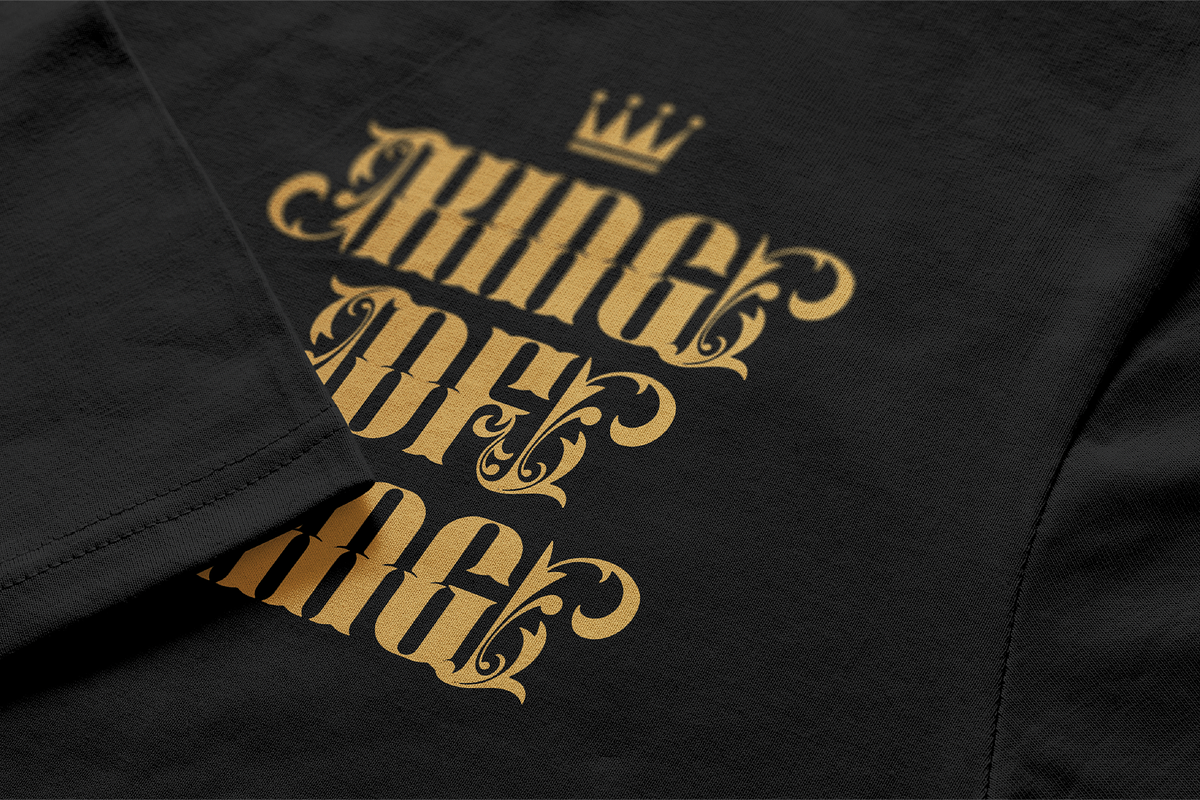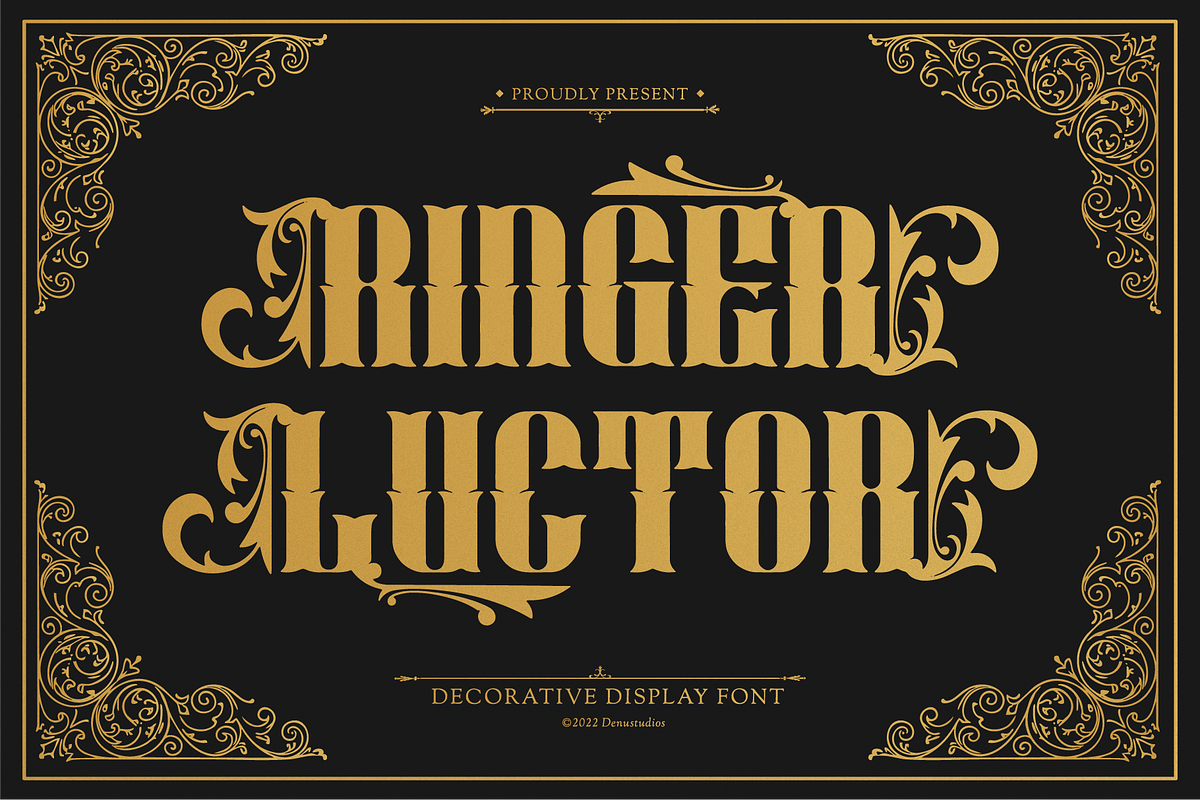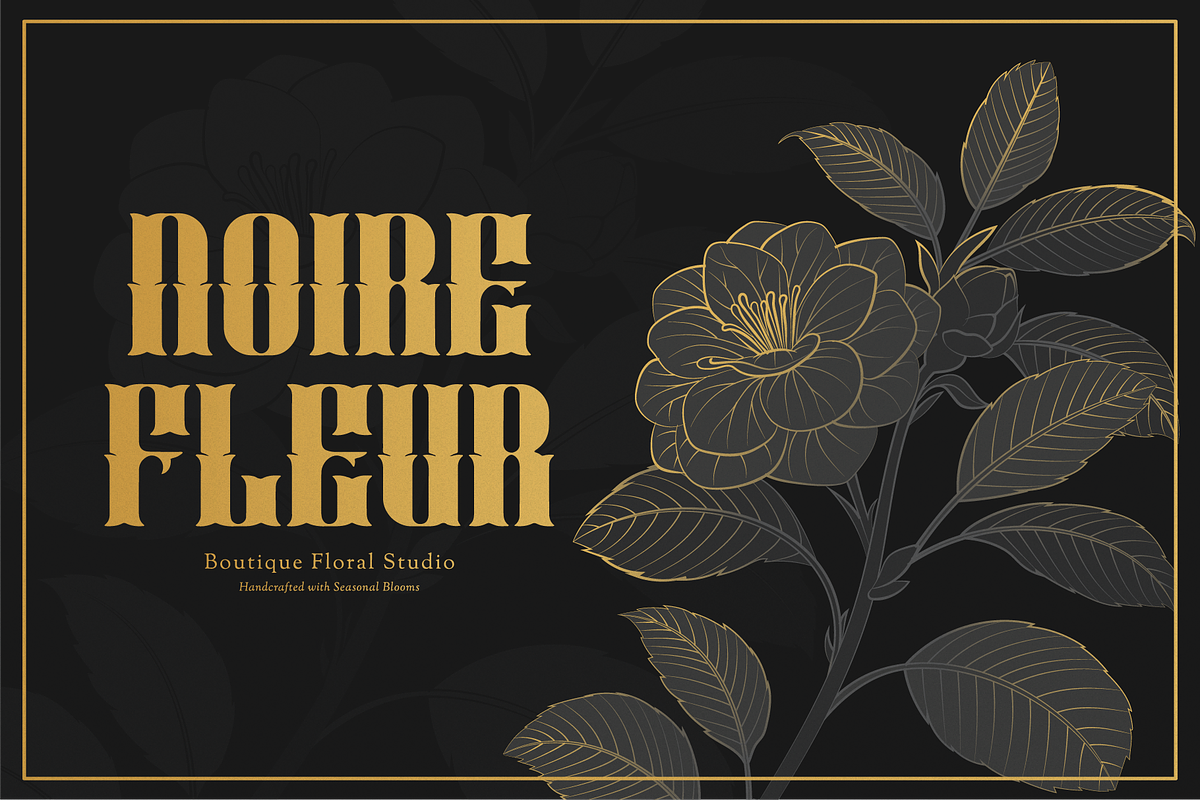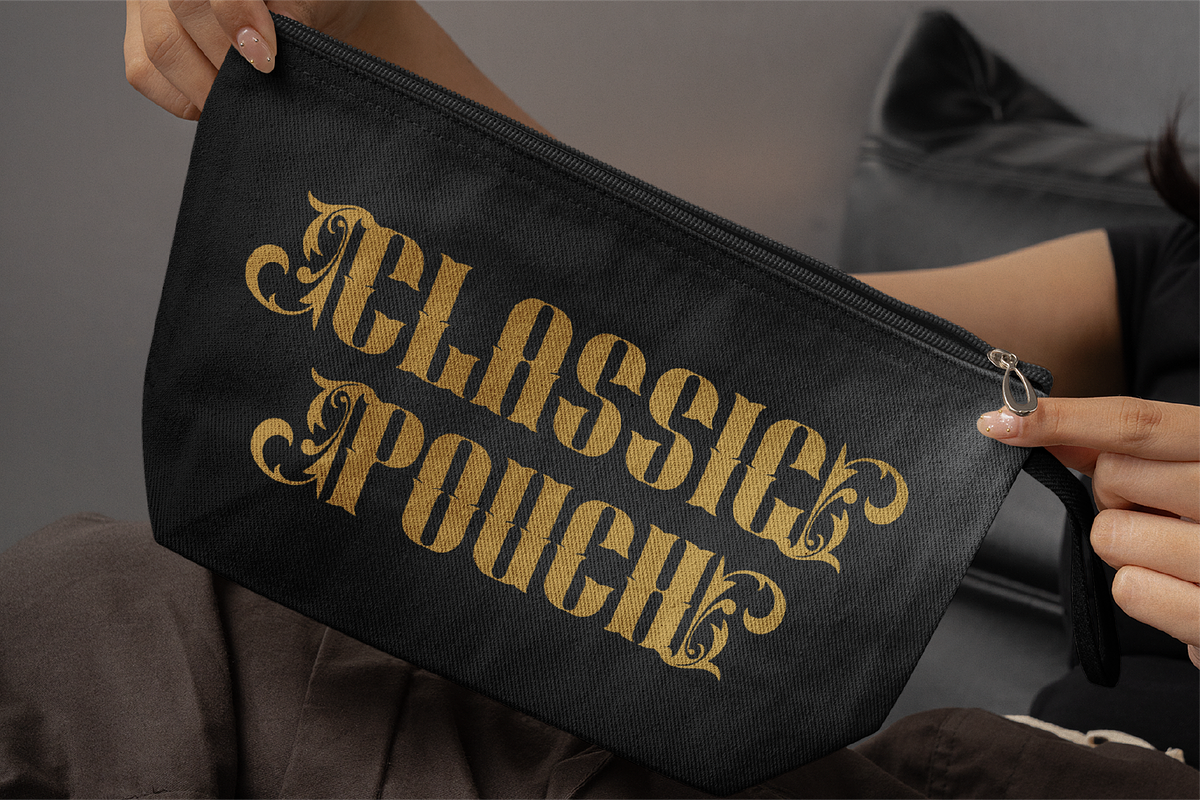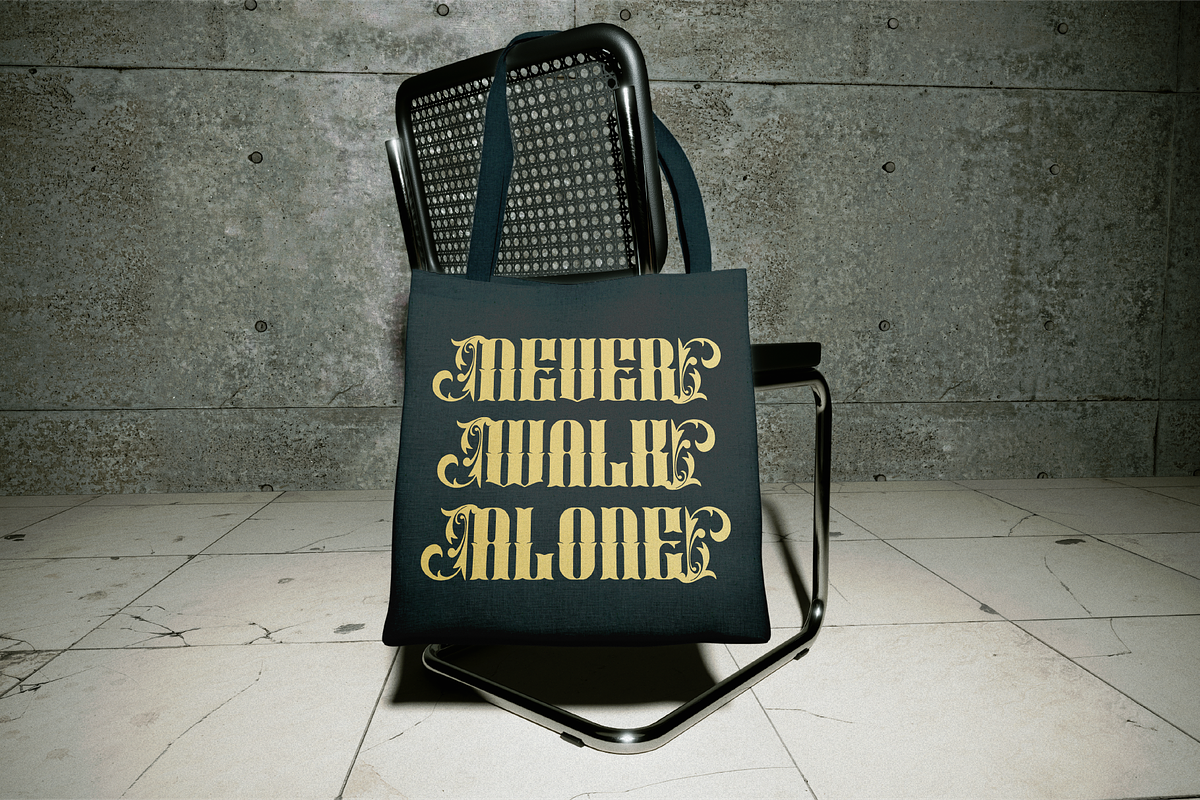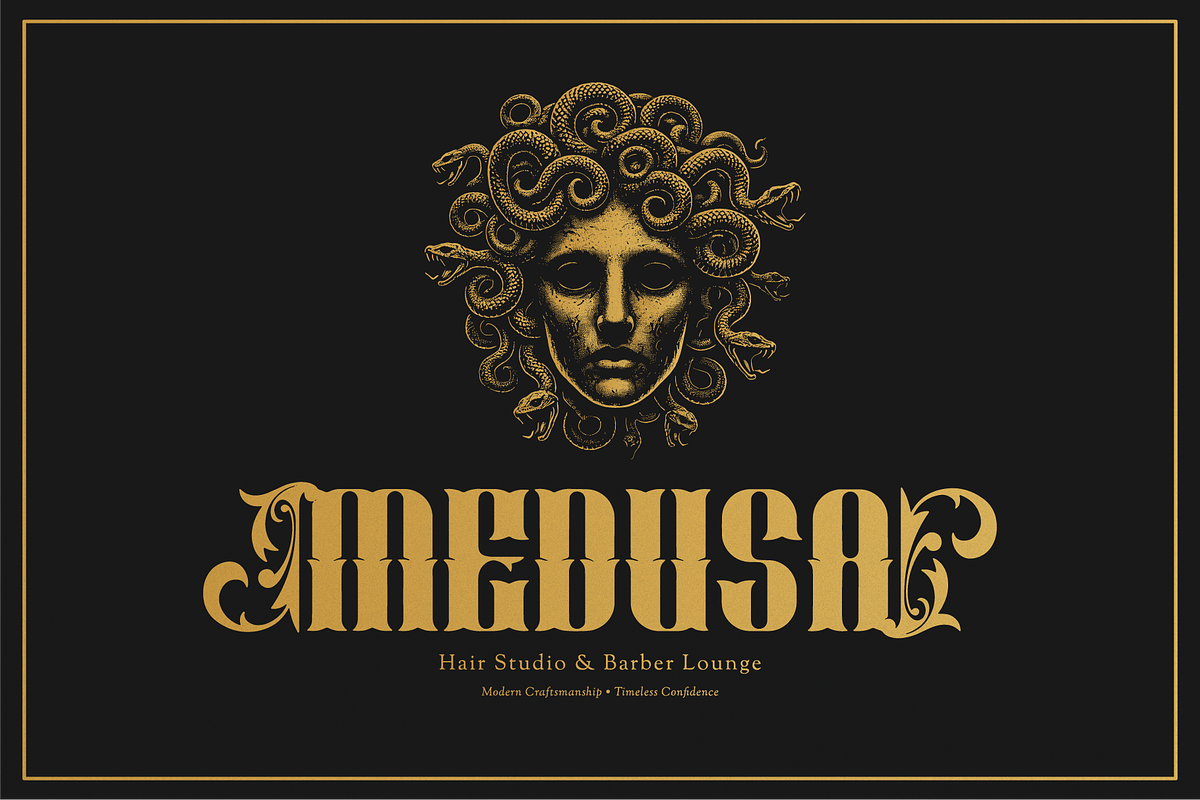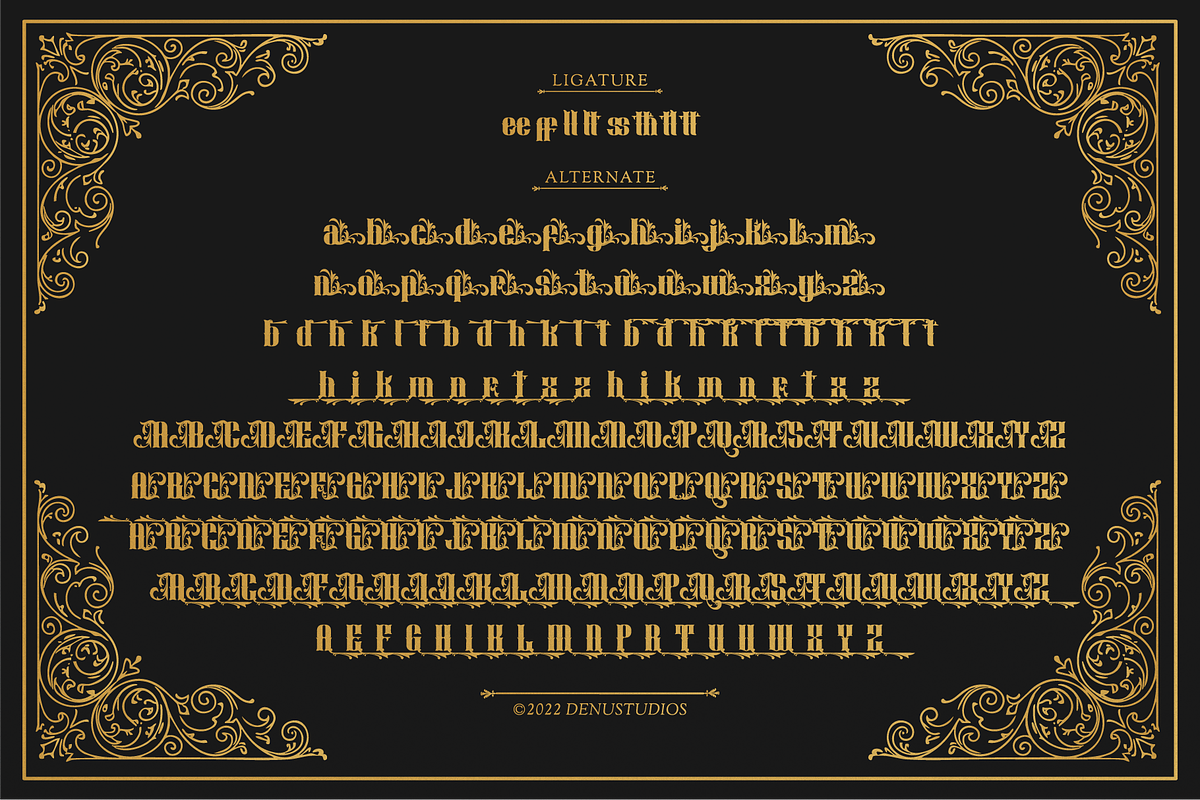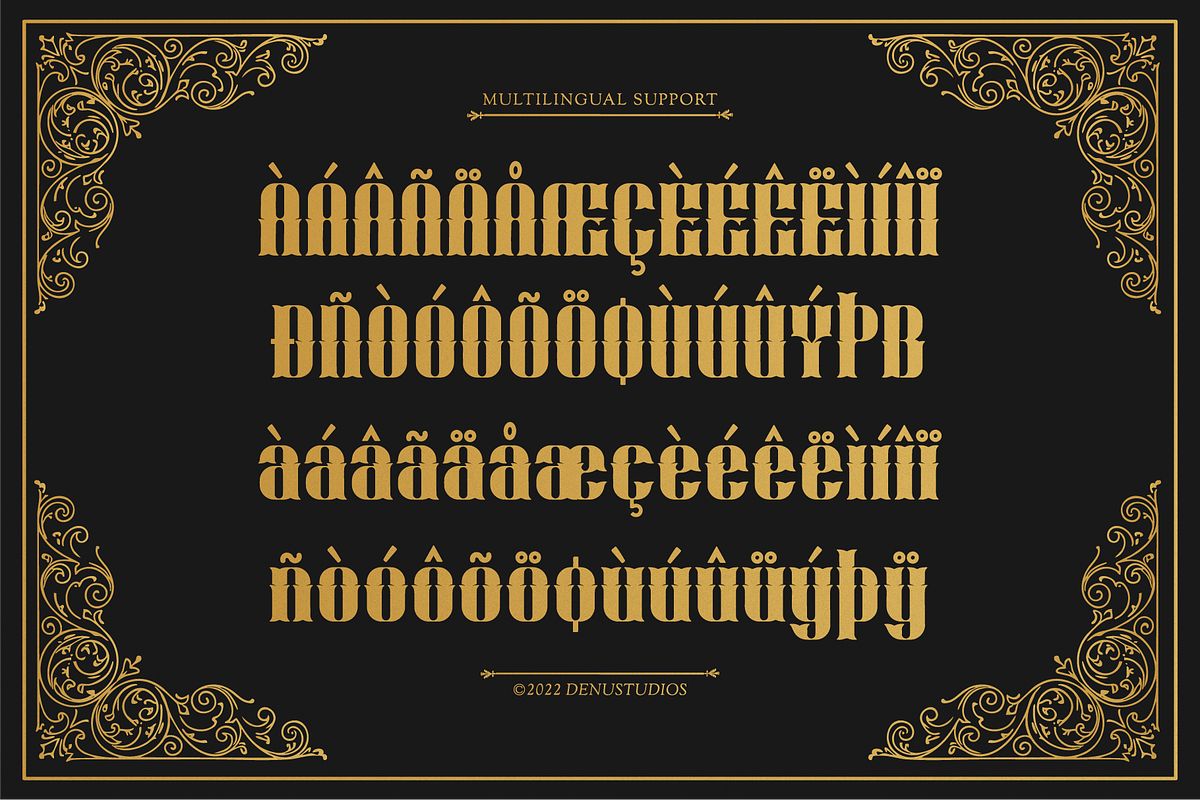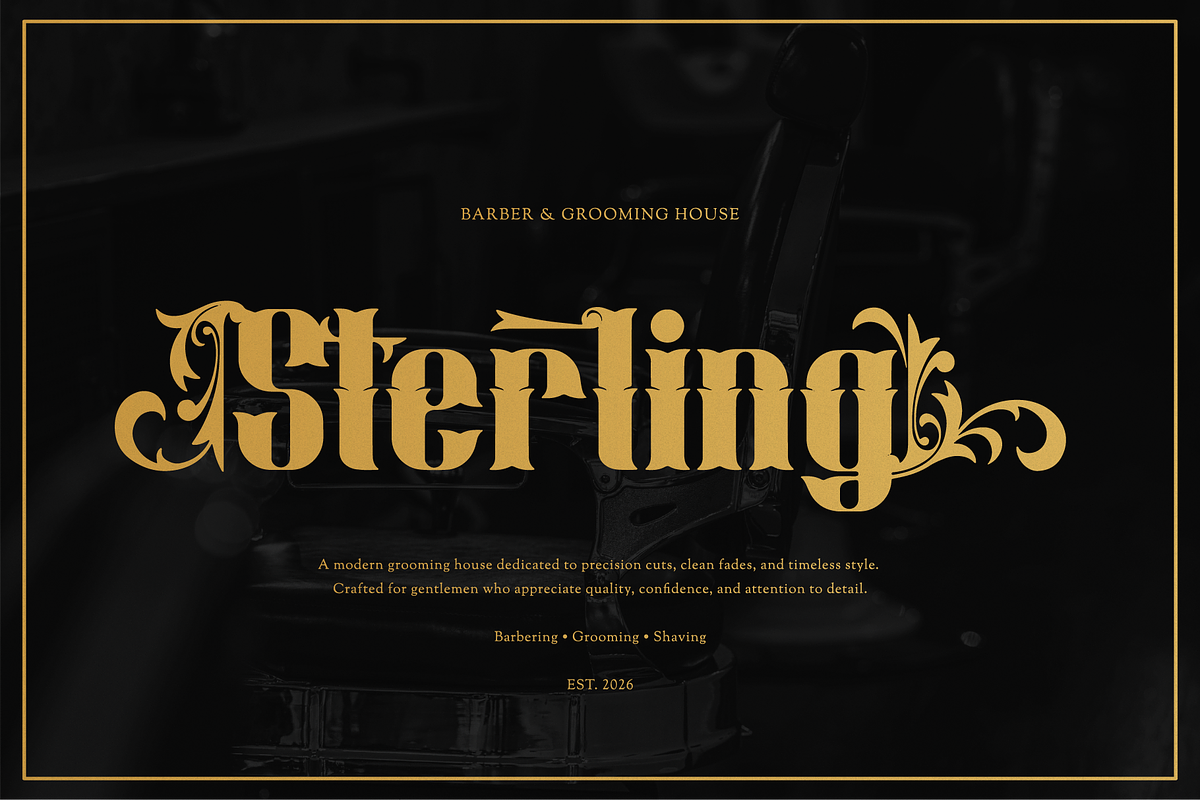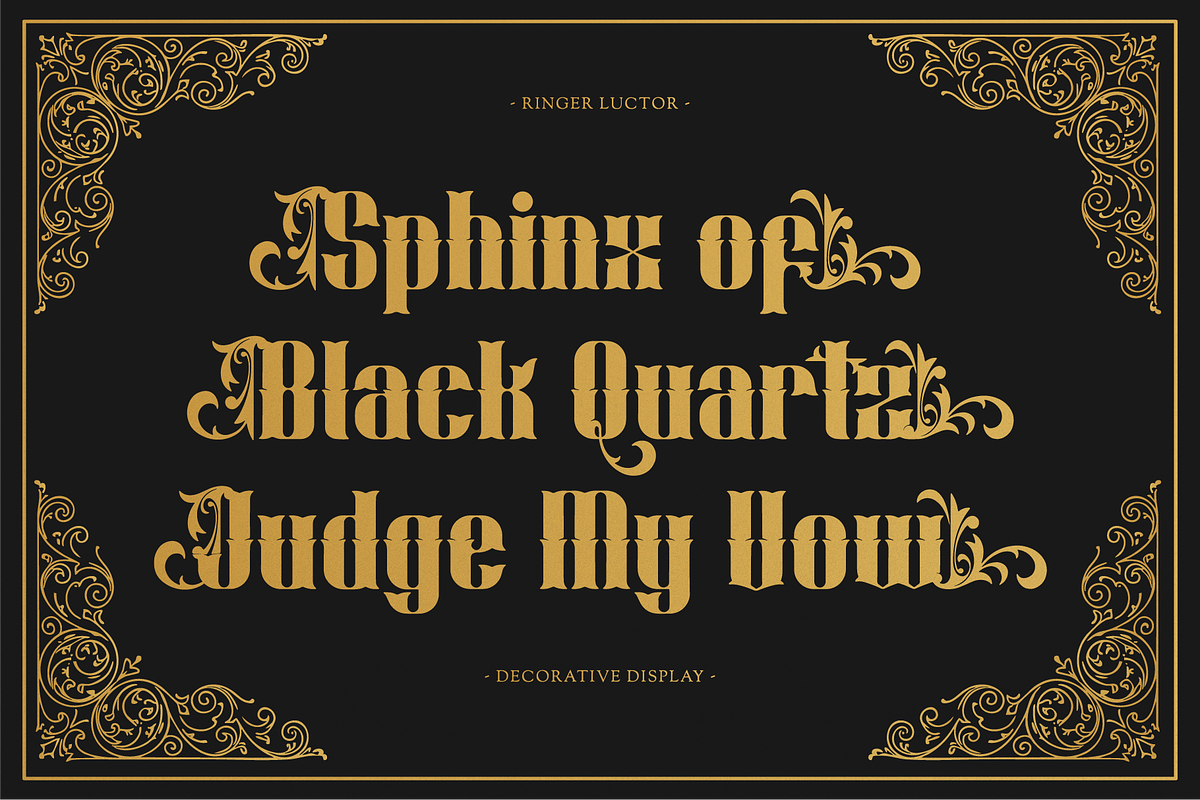
Ringer Luctor Decorative Display
Ringer Luctor | Decorative Display Font, from Denustudios, suitable for any projects such as: logos, branding projects, homeware designs, product packaging, mugs, quotes, posters, shopping bags, t-shirts, book covers, name card, invitation cards, greeting cards, label, photography, watermark, special events, and all your other lovely projects that need a Decorative taste.
Standard glyphs
Alternate and Ligature
Fonts include multilingual support